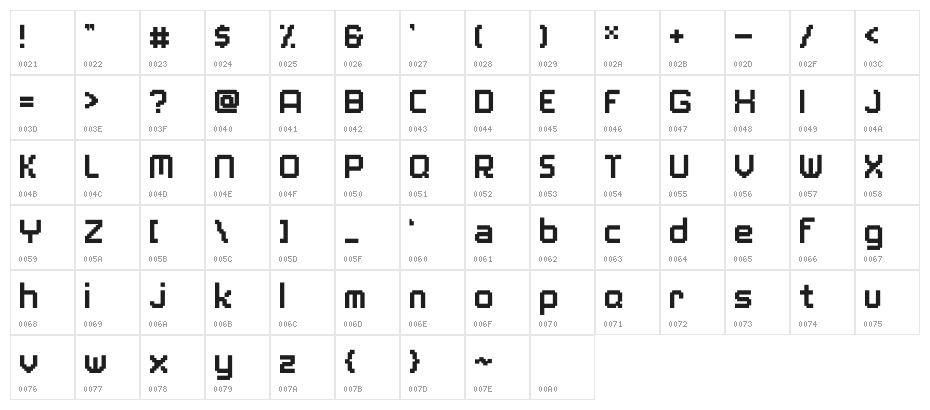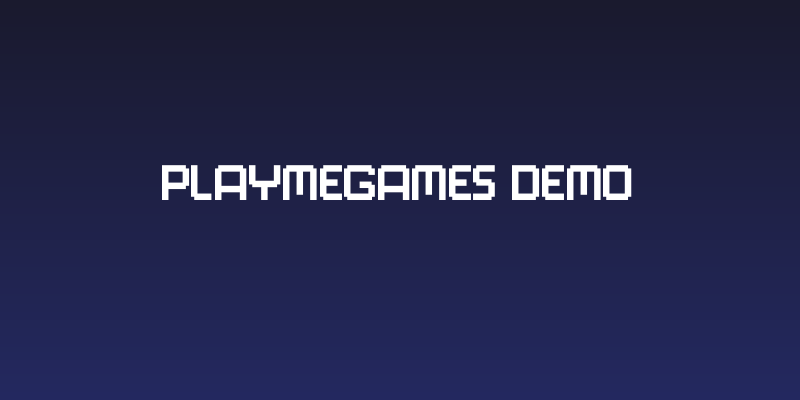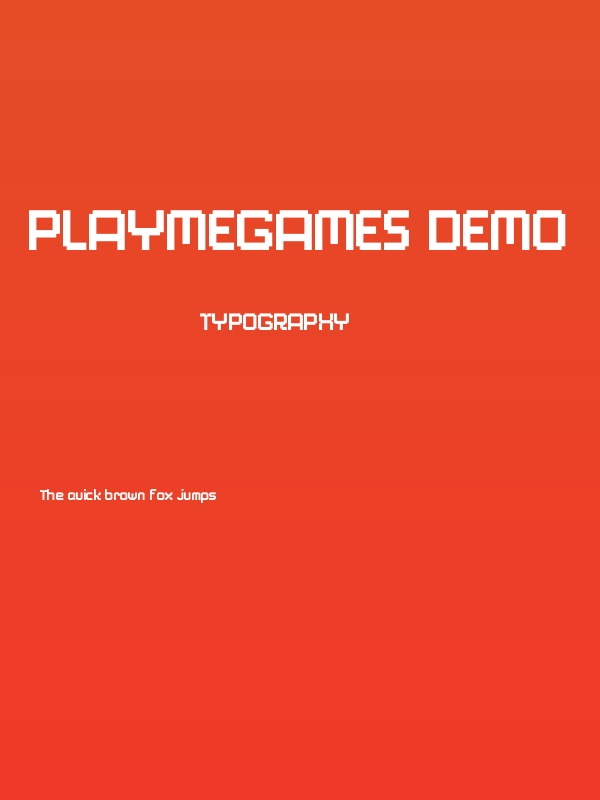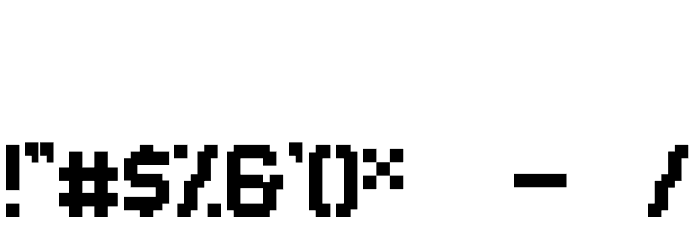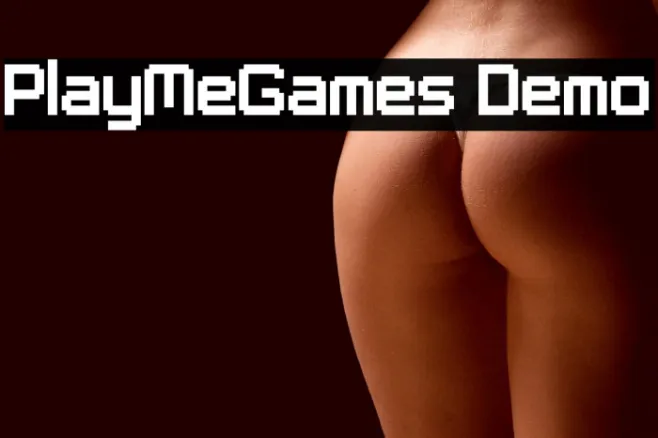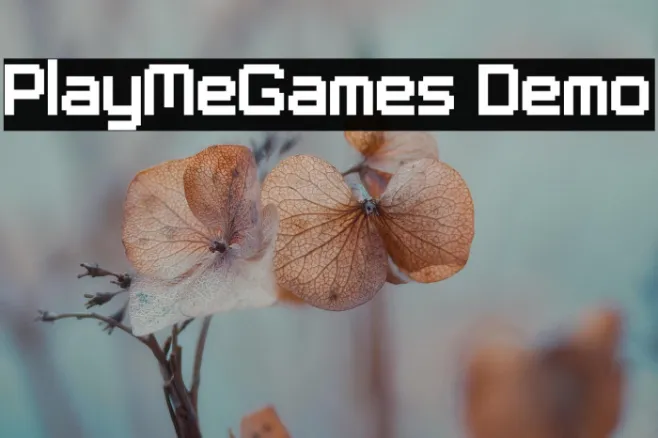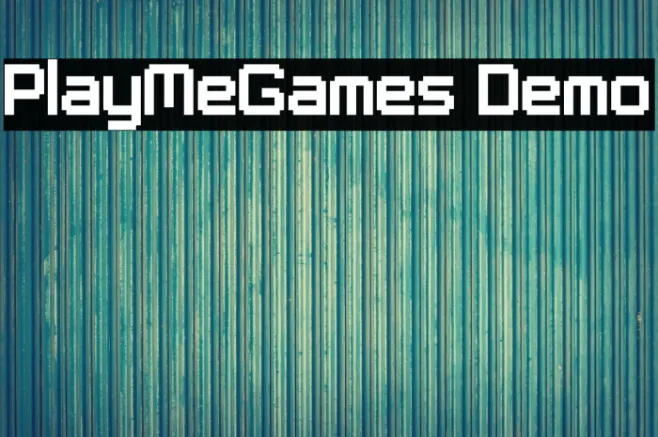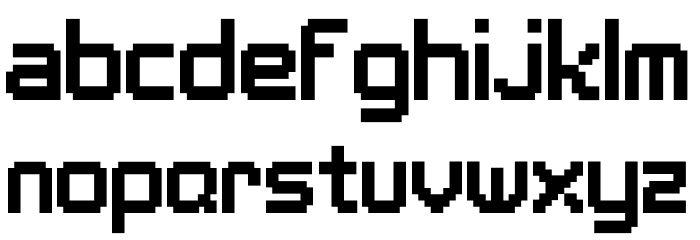
PlayMeGames Demo Font
PlayMeGames Demo Description
This font features a bold, pixelated style reminiscent of classic video game aesthetics. Each character is constructed with a blocky, grid-like appearance, giving it a retro, digital feel. The uppercase and lowercase letters maintain a consistent height, enhancing the uniformity of the design. The numerals and special characters follow the same pixelated pattern, ensuring a cohesive look across all glyphs. This font's geometric and angular nature makes it stand out, capturing the essence of early computer graphics and arcade games.
| Use Case | Headlines, Logos, Video game interfaces |
| Proposed Projects | Ideal for retro-themed video games, digital art projects, and nostalgic branding designs. |